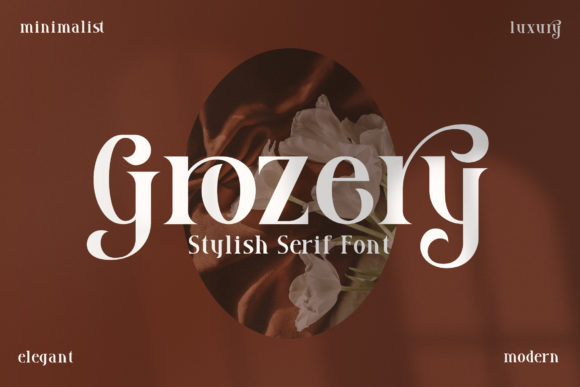
Introducing Grozery: The Font That Will Transform Your Design Visions into Reality!
Are you ready to elevate your designs to new heights of sophistication and style? Look no further than Grozery, the modern and classic serif font that will captivate every eye.
Grozery is a masterpiece of typographic art, meticulously crafted by Storytype Studio to bring you a font that exudes both timeless elegance and contemporary flair. Its bold strokes and unique curves dance across the page, creating an unforgettable visual impact that will leave a lasting impression on your audience.
But Grozery is more than just a pretty face. It is a versatile font that will effortlessly adapt to a myriad of design projects. From elegant logos that demand attention to captivating book or movie title designs that draw readers in, Grozery has the power to transform your creative endeavors into works of art.
Fashion brands, magazine covers, and bespoke clothing designs will come alive with Grozery's stylish presence. Its bold lines will add a touch of luxury and sophistication, while its modern curves will keep your designs looking fresh and contemporary.
But don't just take our word for it. Grozery's PUA encoding opens up a world of possibilities, giving you effortless access to a treasure cove of glyphs and swashes. Unleash your creativity and let your imagination soar as you craft designs that are both visually stunning and irresistibly charming.